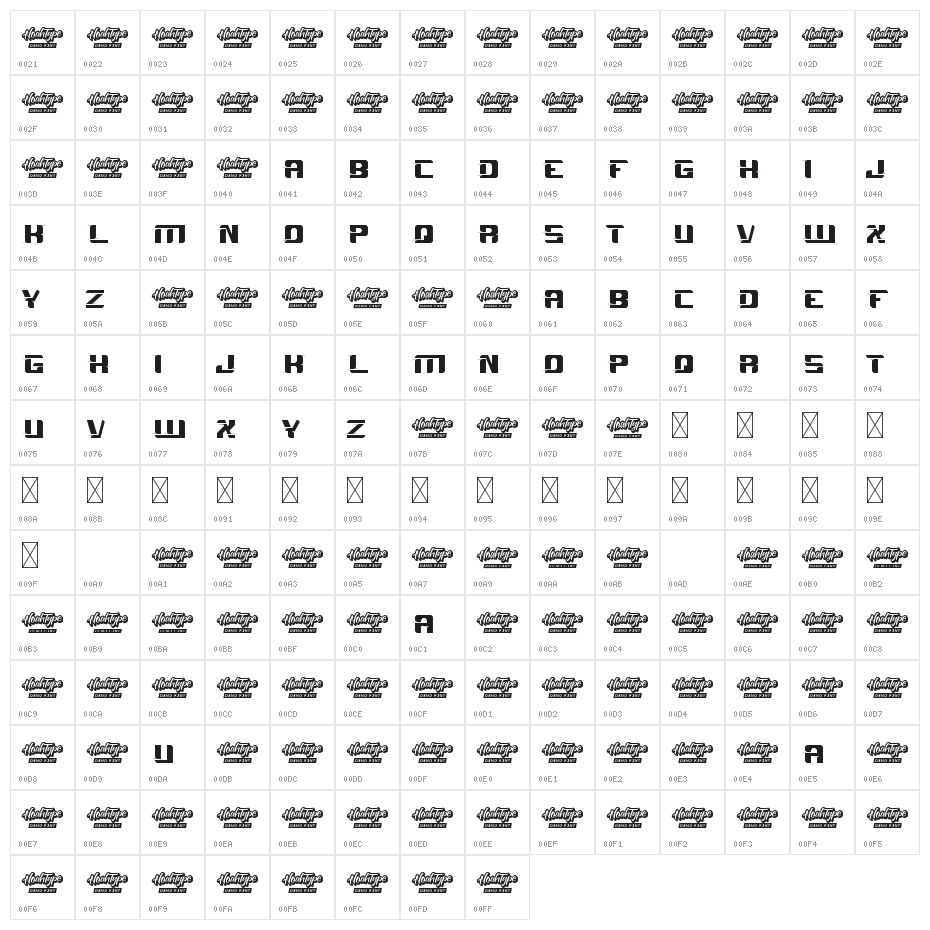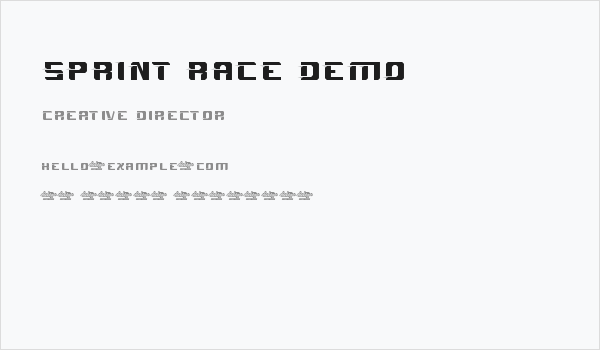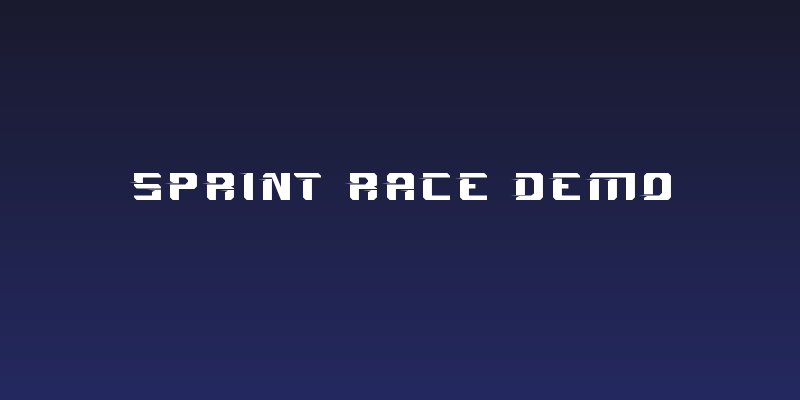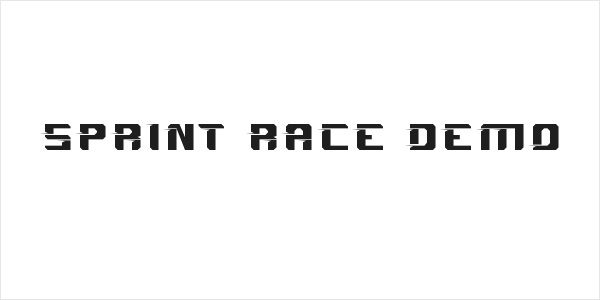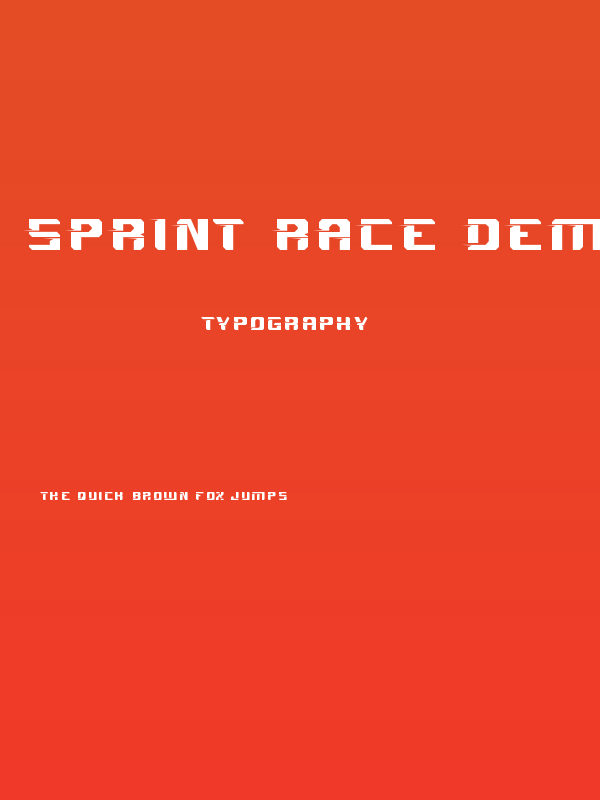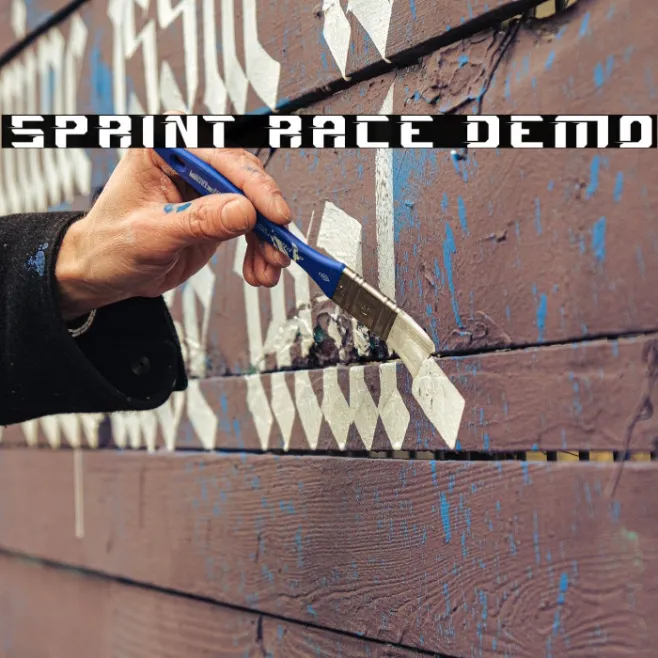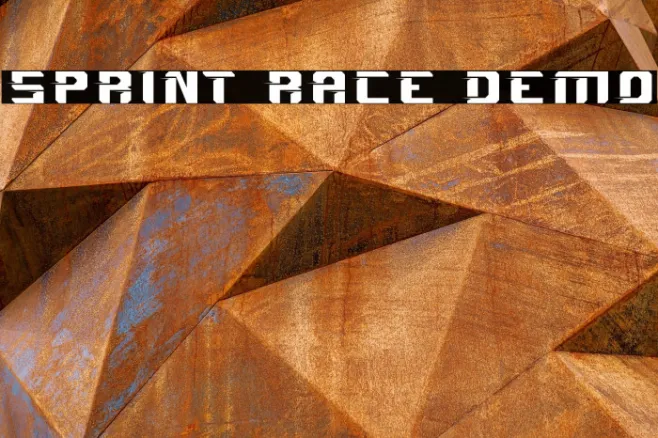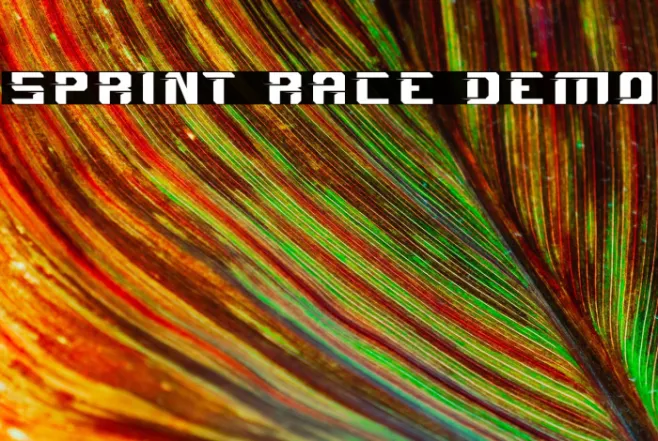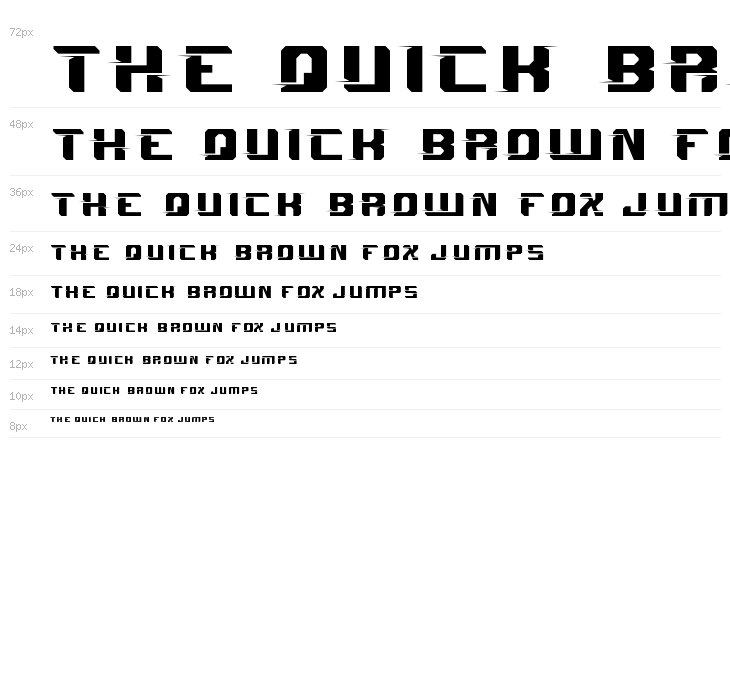
Sprint Race Demo Font
Sprint Race Demo Description
This font features a bold, futuristic design with sharp, angular edges and a dynamic, racing-inspired aesthetic. The characters are constructed with a strong geometric influence, incorporating slanted cuts and a sense of motion. The uppercase letters are particularly striking, with a blocky, robust appearance that suggests speed and power. The lowercase letters maintain the same angular style, ensuring consistency across the typeface. The numbers and special characters follow suit, offering a cohesive look that is both modern and aggressive. This font is ideal for projects that require a sense of urgency or high energy, such as sports branding, automotive advertising, or video game titles.